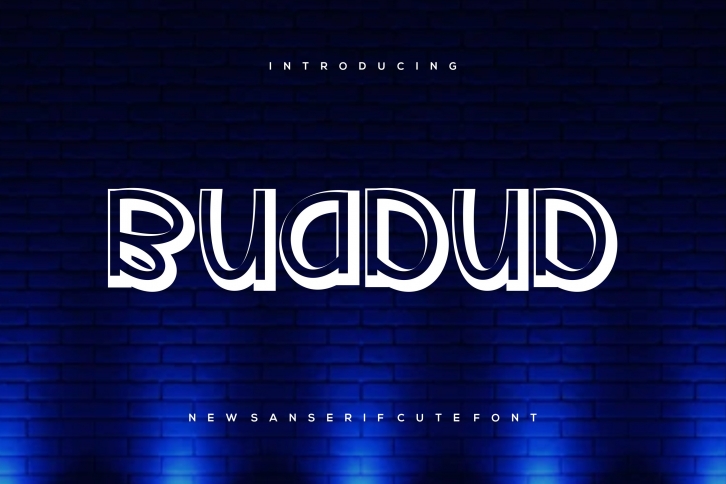
Buadud is a trendy and unique font with an authentic style. It was designed by logologo and it's a great choice for creative people who need such a font. It was released on August 1, 2022 and the file size is 9.96 MB. Buadud will add an organic vibe to any design idea!